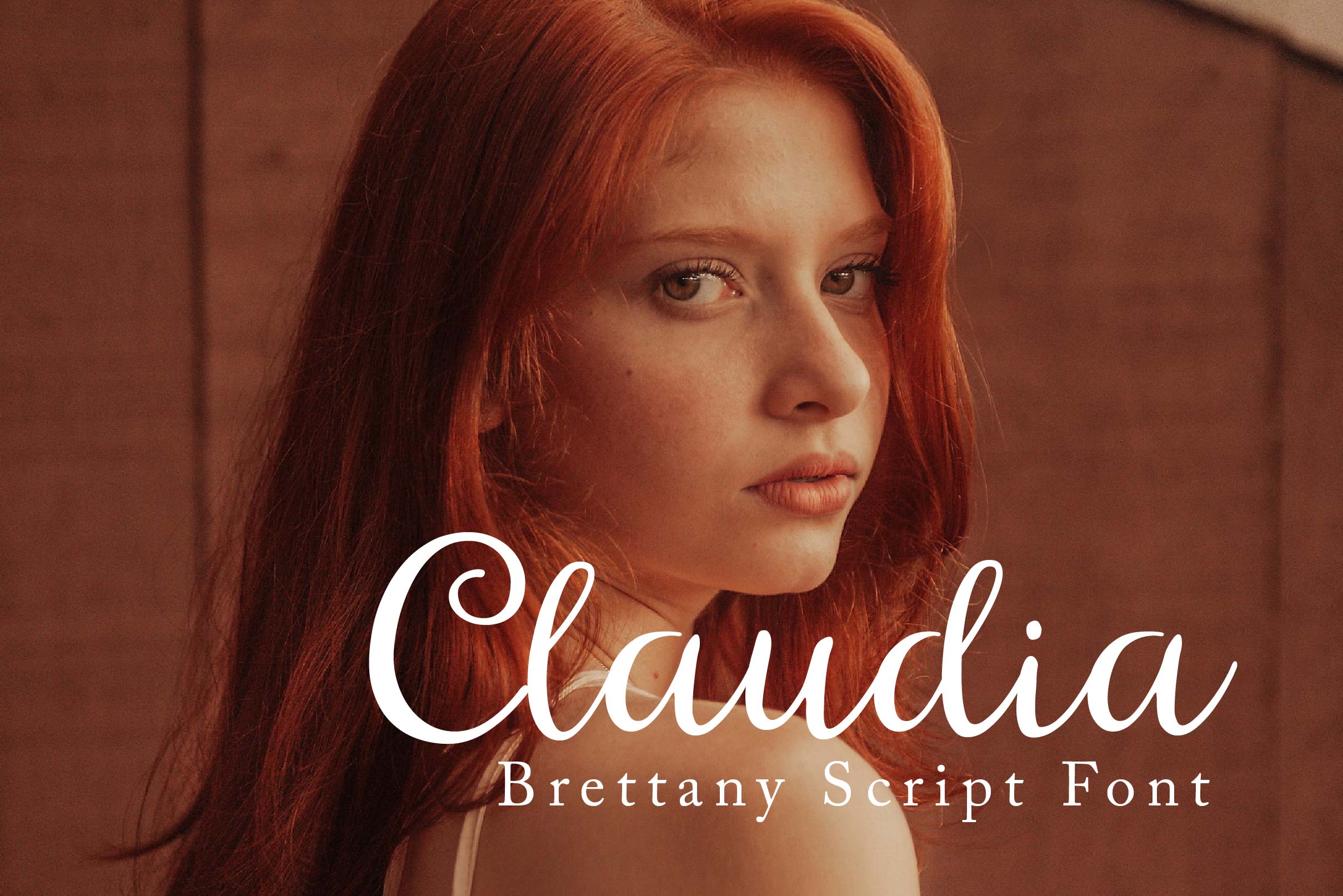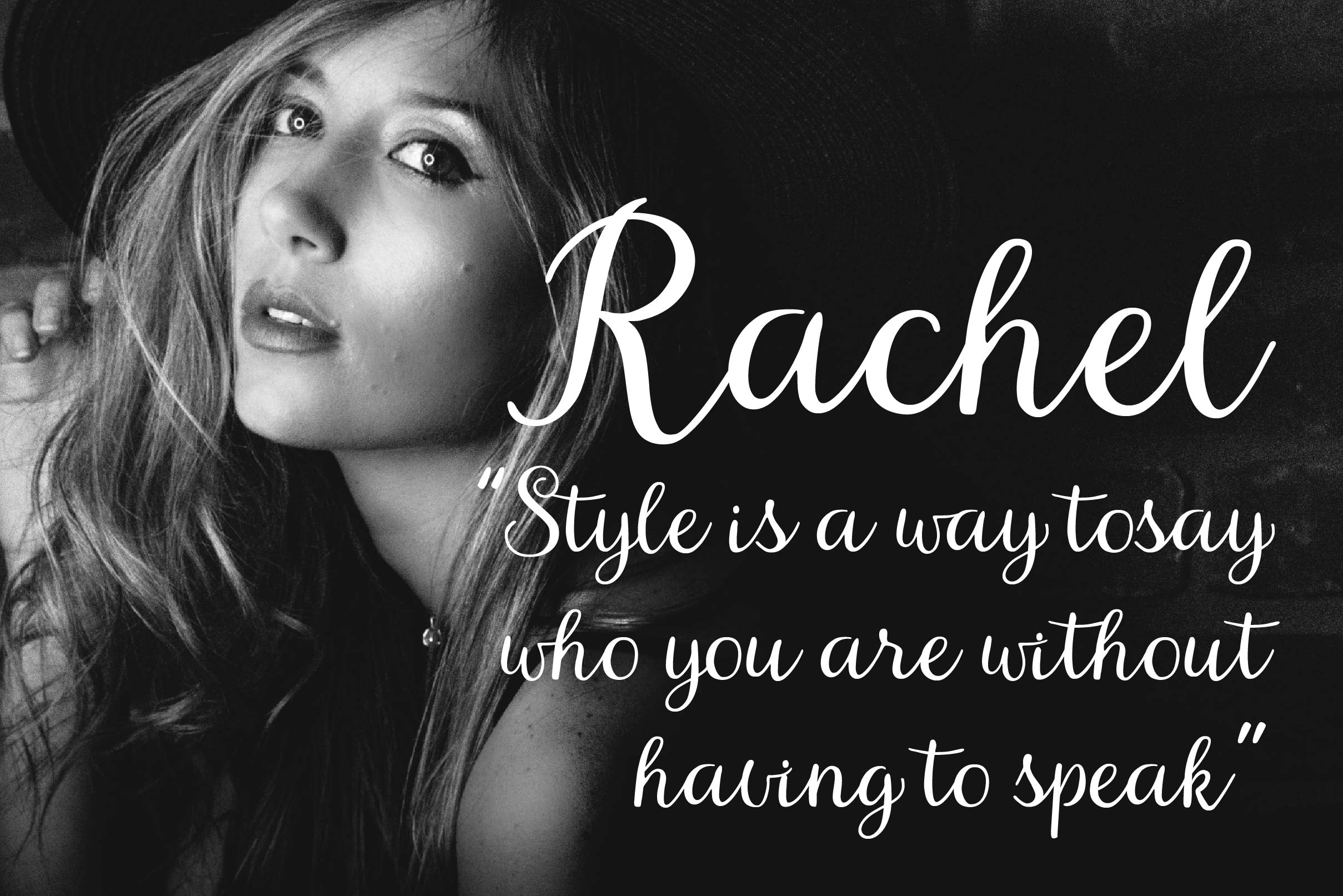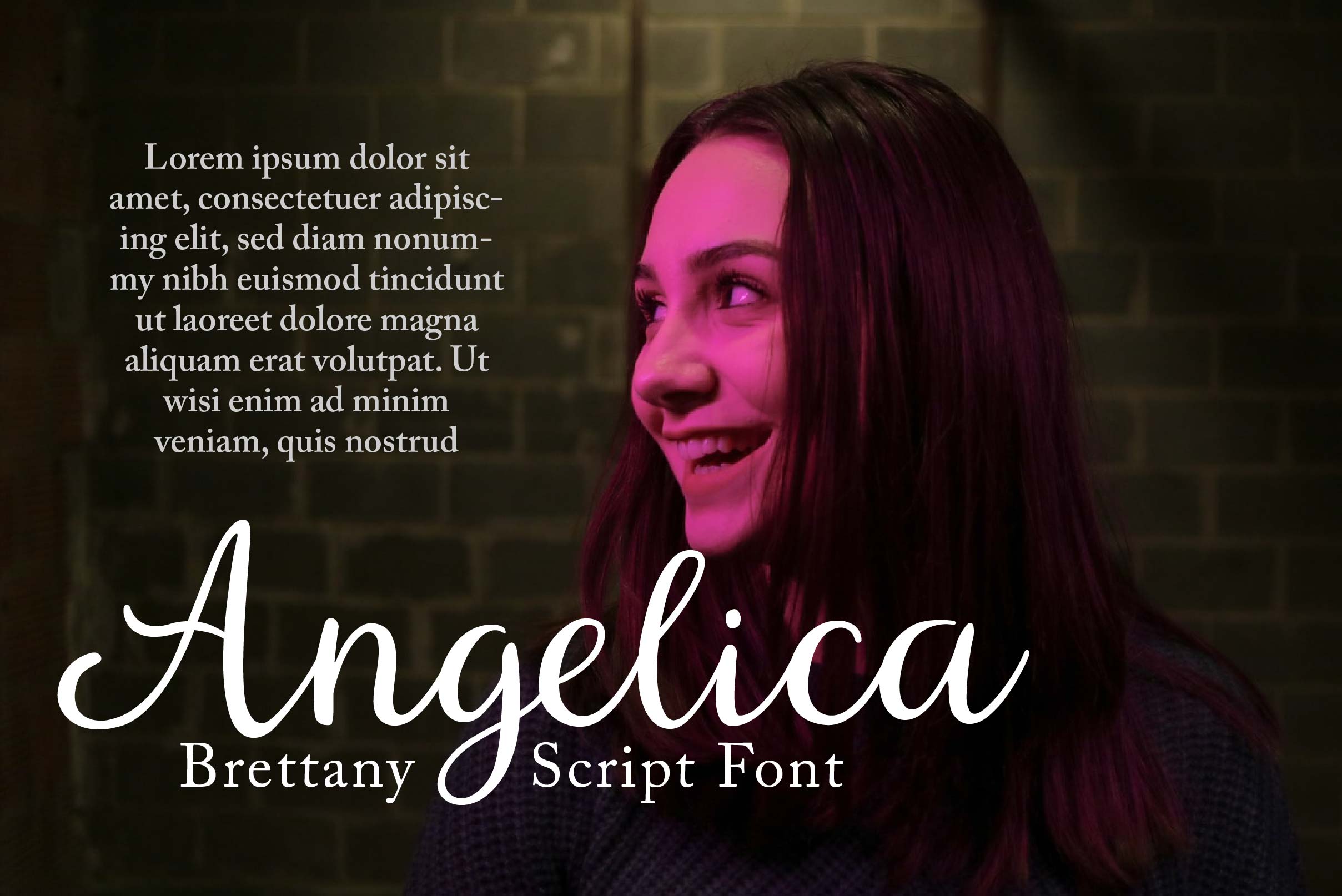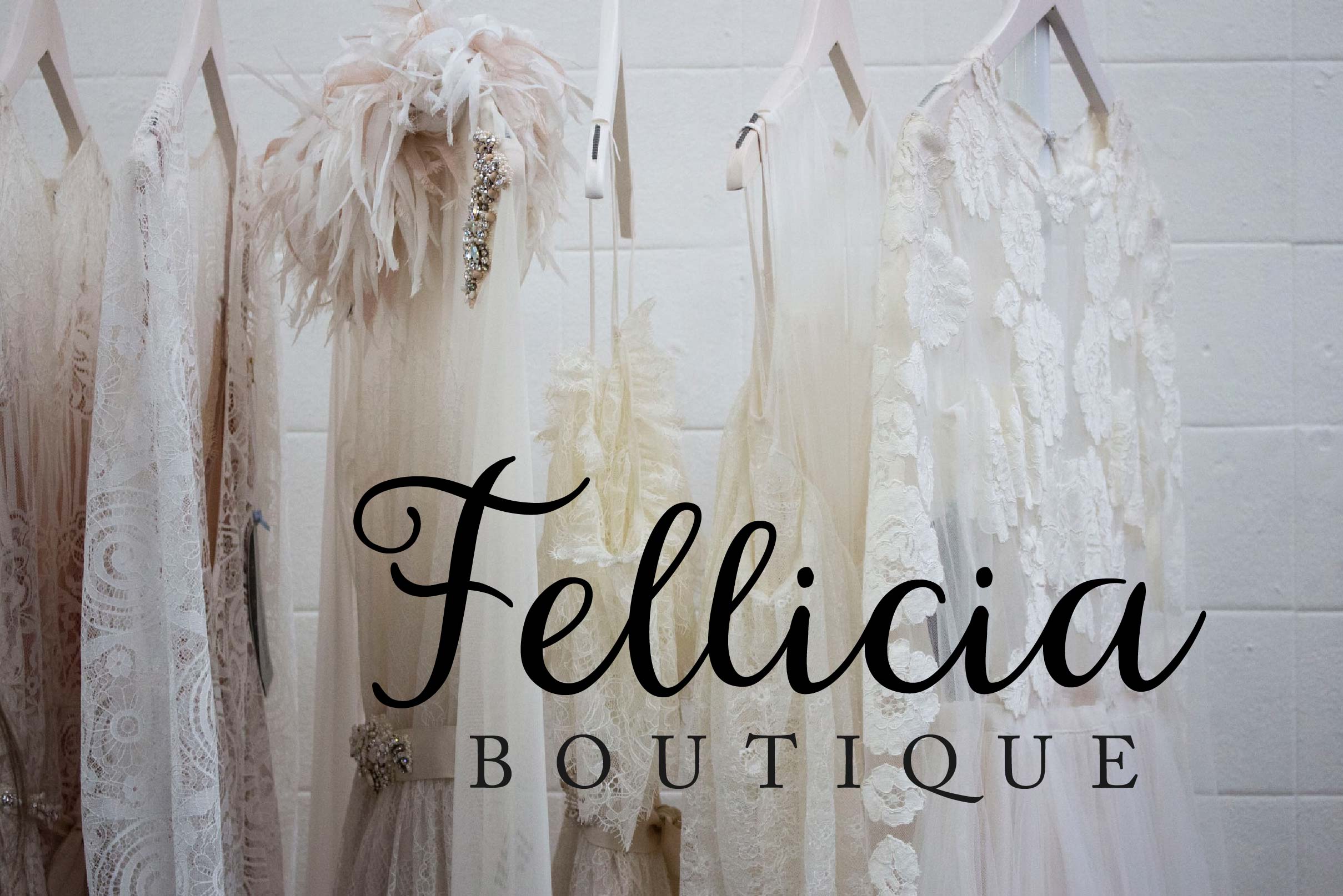
Brettany Font
Brettany Script Font is a modern and playful handwritten script font. It’s great for crafters and designers. It is perfect for any branding project such as logos, t-shirt printing, creative products, and more.